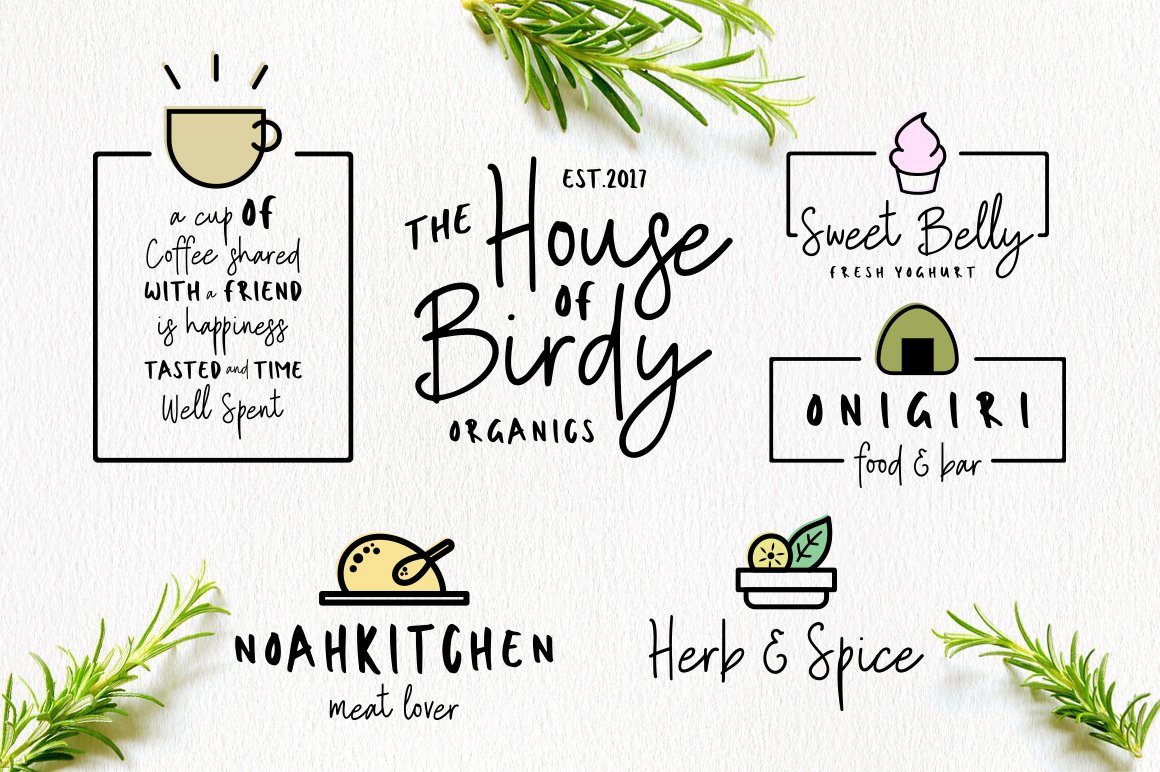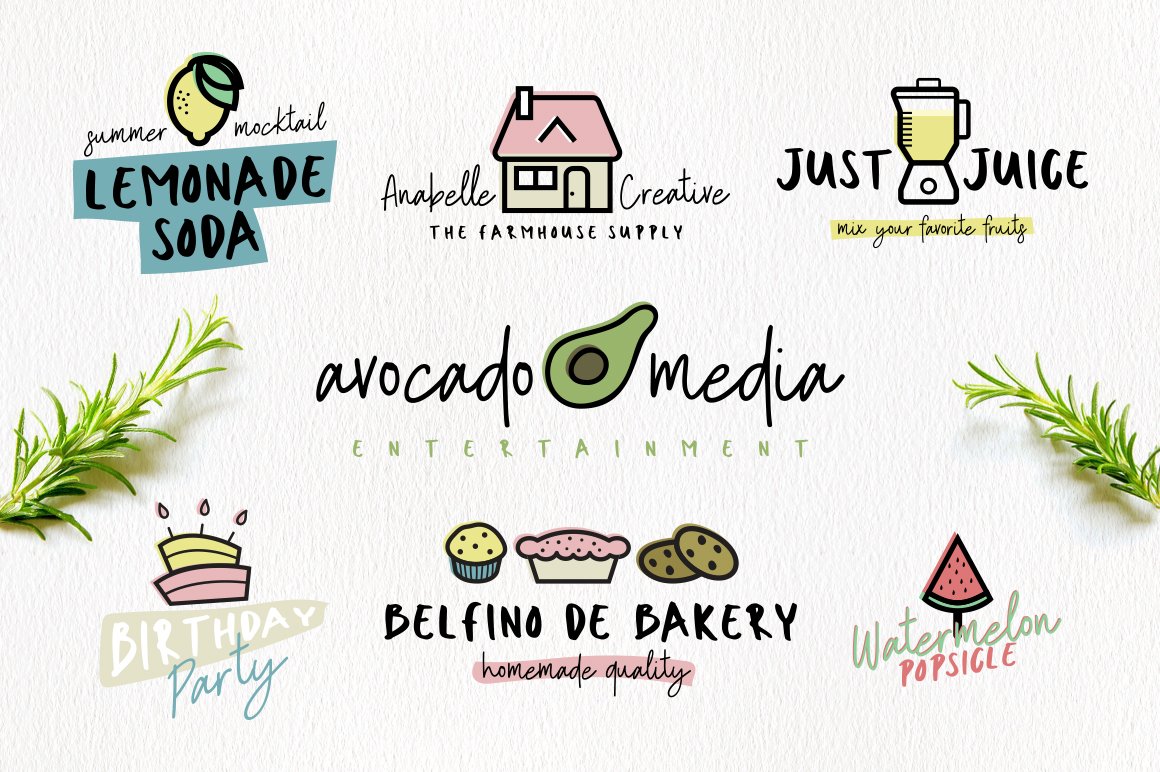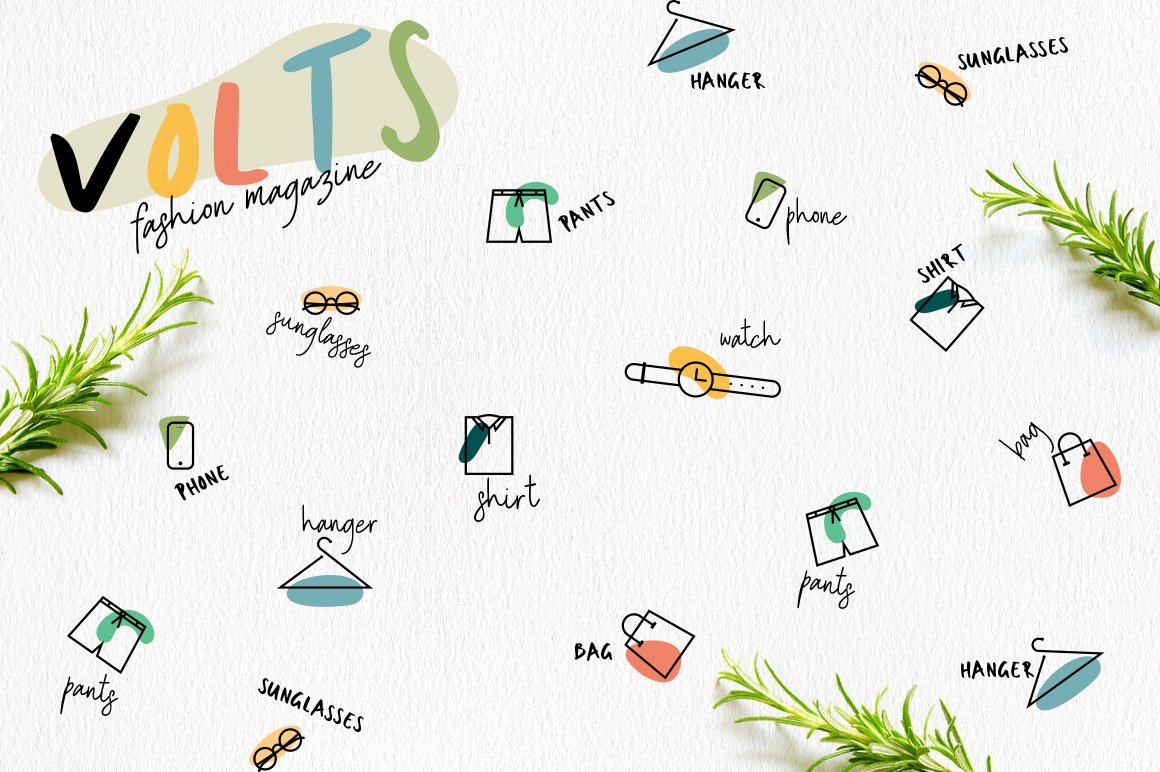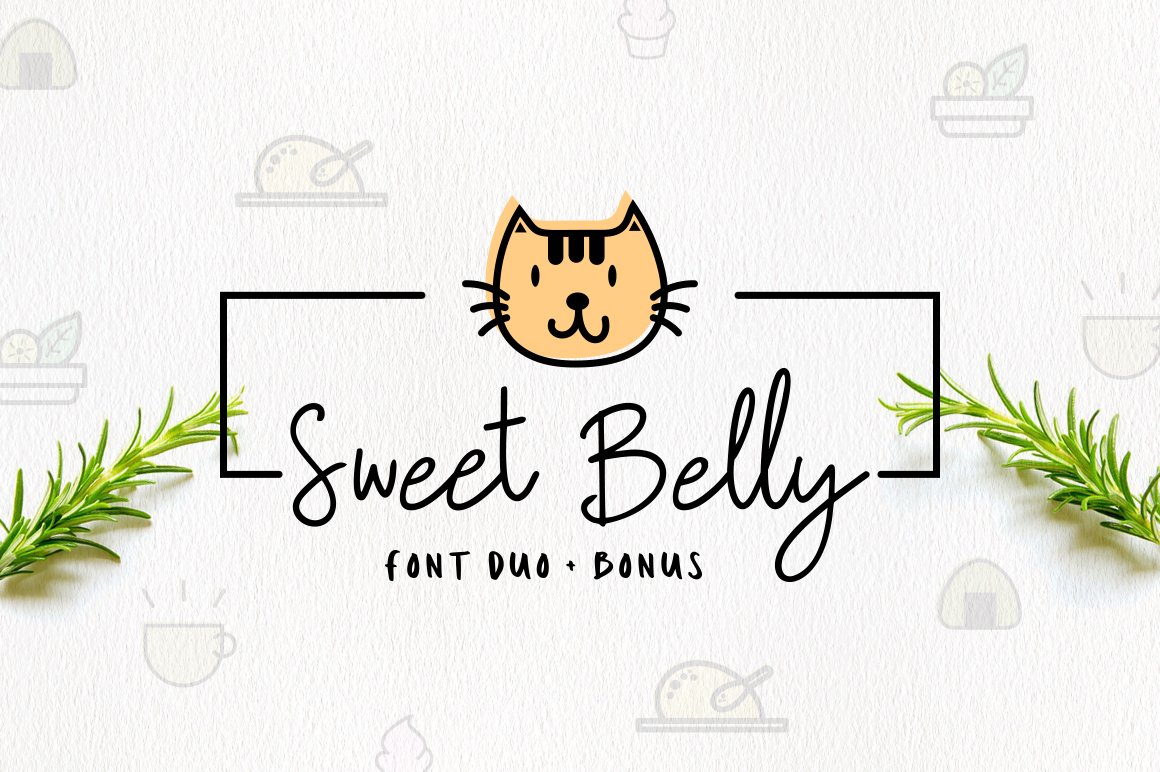
Sweet Belly
Sweet Belly is a cute font duo that combines two font, sans and script into one sweet package. This font combination is perfect for creating your own logo.
This font perfect for sweet logos, cover, magazine, sticker, flyer, cards, and more.